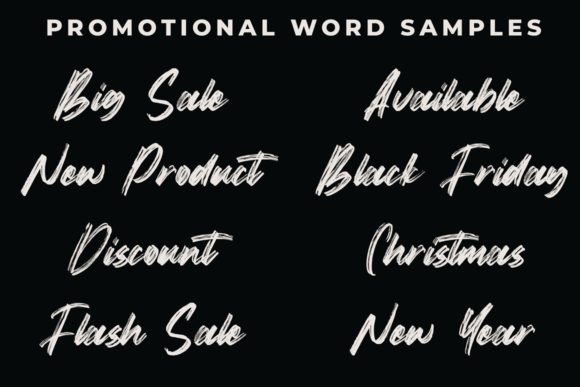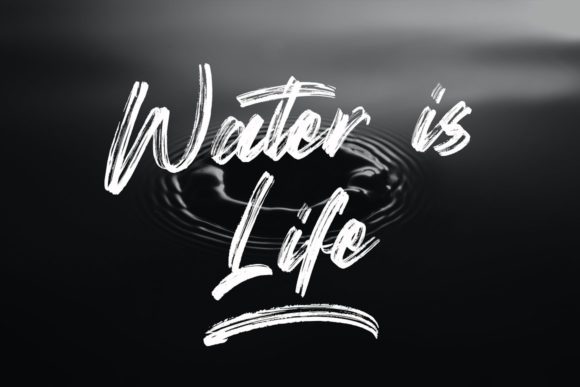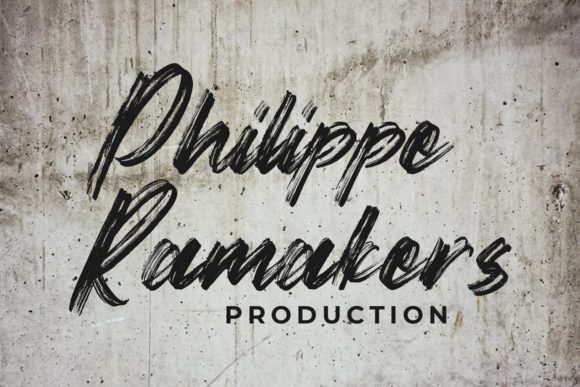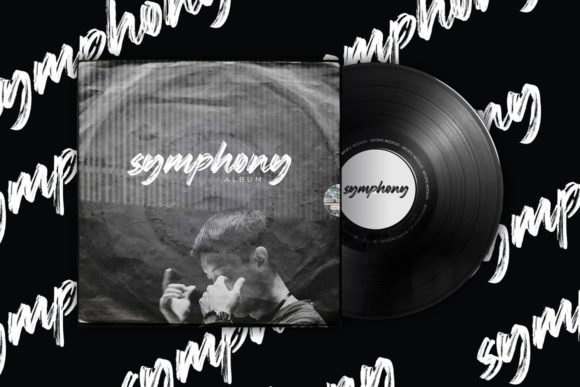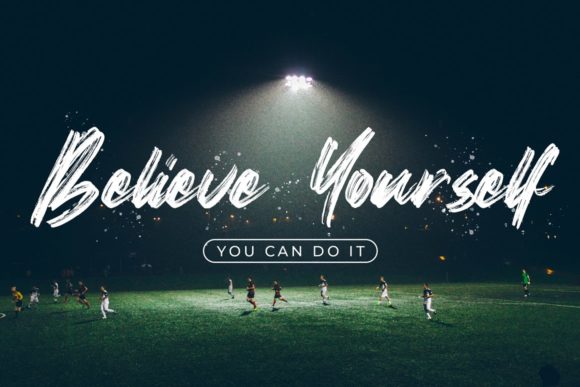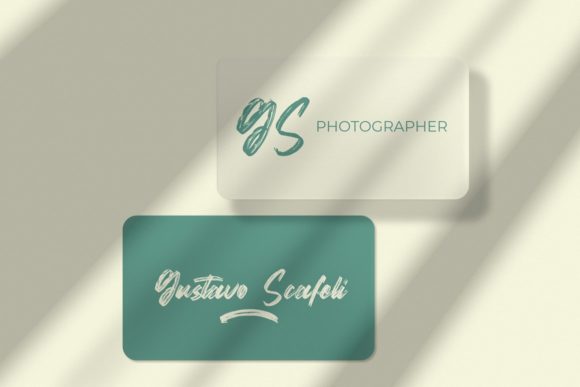
Introducing Goodness Font: The Perfect Addition to Your Crafting Projects
Are you a designer or crafter looking for a unique and personalized touch for your projects? Look no further than Goodness Font, a bold and quirky handwritten font that’s sure to make your creations stand out. In this article, we’ll dive into the world of Goodness Font and explore its features, benefits, and uses.
What is Goodness Font?
Goodness Font is a beautifully crafted handwritten font that’s perfect for adding a personal touch to your crafting projects. Its bold and quirky design makes it ideal for creating eye-catching titles, headings, and text that will grab attention. Whether you’re working on a DIY craft, a scrapbooking project, or a handmade card, Goodness Font is the perfect choice.
Features of Goodness Font
So, what makes Goodness Font so special? Here are just a few of its key features:
- Bold and Quirky Design: Goodness Font boasts a unique and playful design that’s sure to add a touch of personality to your projects.
- Handwritten Style: The font’s handwritten style gives it a warm and organic feel that’s perfect for creating handmade crafts and DIY projects.
- Easy to Read: Despite its bold and quirky design, Goodness Font is surprisingly easy to read, making it perfect for use in titles, headings, and body text.
- Versatile: Goodness Font can be used for a wide range of crafting projects, from scrapbooking and card making to DIY crafts and handmade gifts.
Benefits of Using Goodness Font
So, why should you choose Goodness Font for your crafting projects? Here are just a few benefits of using this amazing font:
- Adds a Personal Touch: Goodness Font’s unique and handwritten design adds a personal touch to your projects, making them stand out from the crowd.
- Increases Creativity: The font’s bold and quirky design can help inspire your creativity and add a new level of excitement to your projects.
Uses for Goodness Font
So, what can you use Goodness Font for? The possibilities are endless! Here are just a few ideas to get you started:
- Scrapbooking: Add a personal touch to your scrapbooking projects with Goodness Font’s bold and quirky design.
- Card Making: Create handmade cards that stand out from the crowd with Goodness Font’s unique and handwritten style.
- DIY Crafts: Add a touch of personality to your DIY crafts, such as knitted items, jewelry, and home decor projects.
- Handmade Gifts: Create one-of-a-kind handmade gifts, such as personalized mugs, t-shirts, and tote bags.
Tips for Using Goodness Font
Here are a few tips for getting the most out of Goodness Font:
- Experiment with Different Sizes: Goodness Font looks great in a variety of sizes, so don’t be afraid to experiment and find the perfect size for your project.
- Pair with Other Fonts: Goodness Font pairs well with other fonts, so try combining it with a sans-serif font for a bold and modern look.
- Use for Headings and Titles: Goodness Font is perfect for use in headings and titles, where its bold and quirky design can really make an impact.
In conclusion, Goodness Font is a bold and quirky handwritten font that’s perfect for adding a personal touch to your crafting projects. With its unique design, ease of use, and versatility, Goodness Font is a must-have for designers and crafters alike. So why wait? Download Goodness Font today and start creating unique and eye-catching projects that will stand out from the crowd!